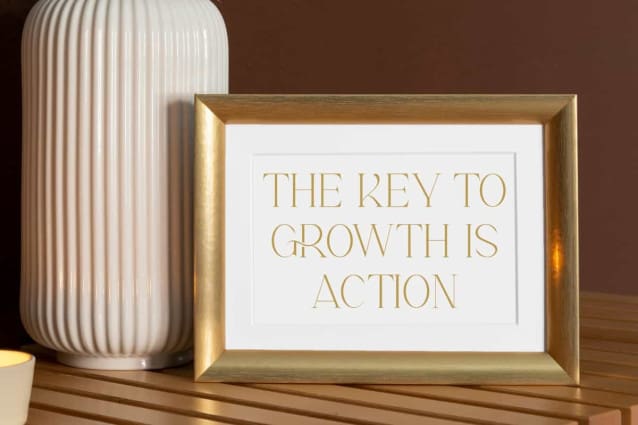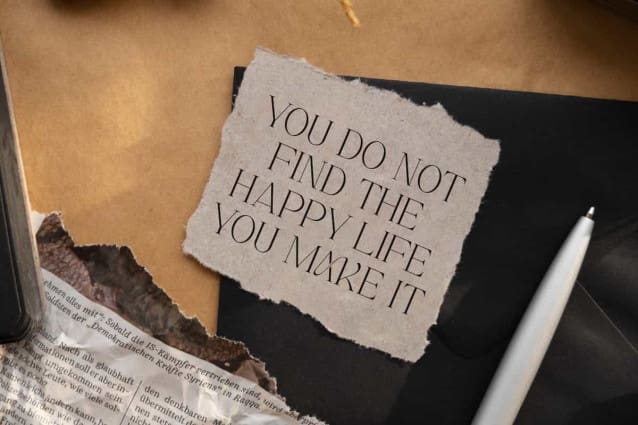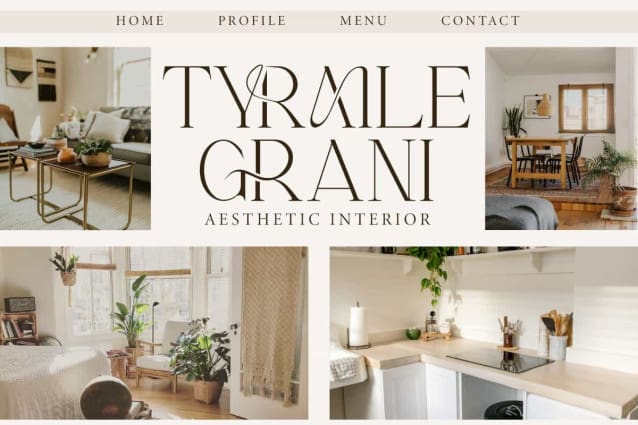
Tyraile Grani Font
Tyraile Grani Font is a simple yet stunning serif display font with luxurious style inspired by classy typography. This stunning font will be perfect for any projects, it can be used for advertising, blog, brand image, invitation, label, layout design, logo, quotes, stationery, template design, website, and more!
Tyraile Grani Font includes full set of Uppercase and Lowercase Basic Characters, Numerals, Punctuation, and Symbol. This font has Ligature characters that it looks awesome. It’s perfect for accessories and jewelry, beauty product, event or wedding organizer, fashion, florist, furniture, real estate, spa salon, etc.